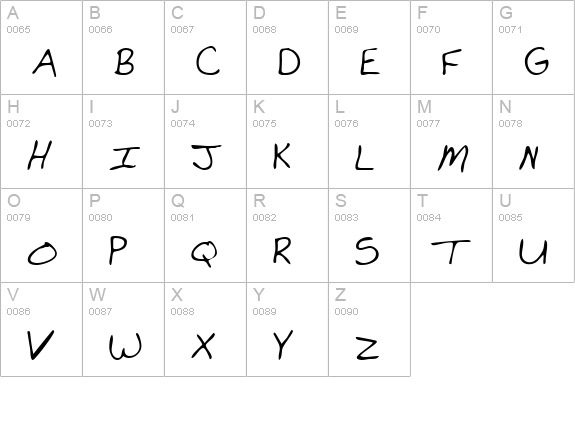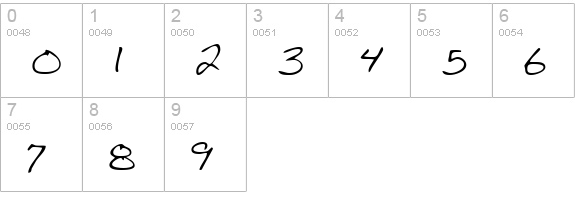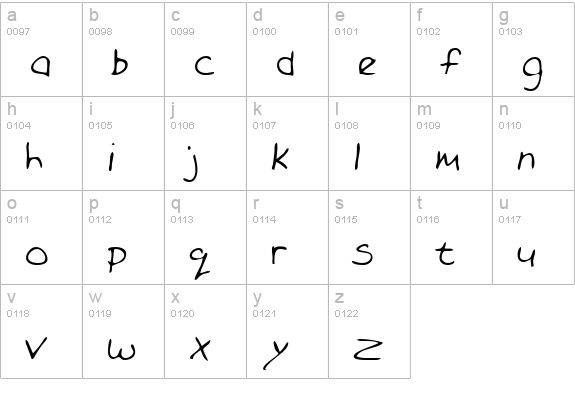
ForrestsHand Regular Font Details
ForrestsHand Regular is the standard, neutral variant in the ForrestsHand typeface family \xE2\x80\x94 well suited to general body text, paragraphs, and standard typographic work.
ForrestsHand Regular font exudes a charming and whimsical feel, perfect for adding a touch of playfulness to your designs. Its flowing and organic letterforms give off a natural and handcrafted vibe, making it a versatile choice for various projects. Whether you're creating invitations, posters, logos, or social media graphics, this font will bring a unique and personal touch to your work. The best part? ForrestsHand Regular is available for free download at FontsMarket.com, making it easily accessible for designers and creatives alike. Embrace the creative possibilities that come with this delightful font and elevate your designs with its distinctive character and style.